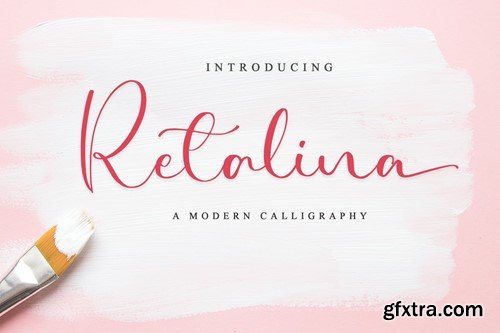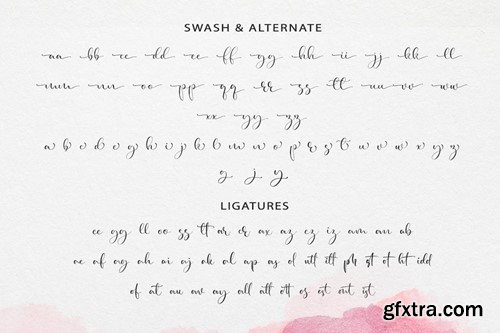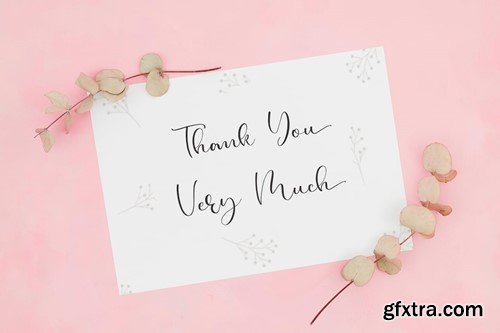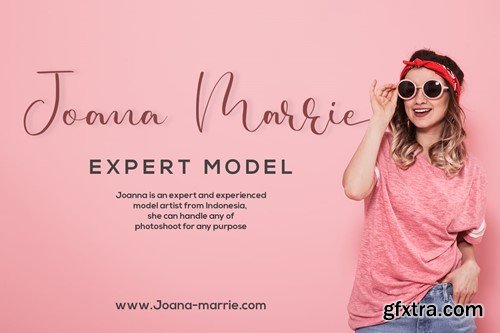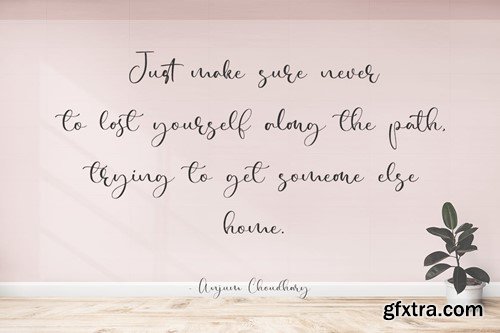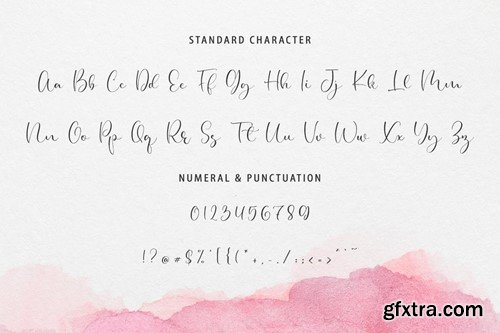
Retalina - A Lovely Script Font
Retalina is a beautiful light handwritten font with a unique feel and a stunning impact. It will add a luxury spark to any design project that you wish to create! What you get: PUA encoded = Accessible in the Adobe Illustrator, Adobe Photoshop, Adobe InDesign, even work on Microsoft Word. PUA Encoded Characters - Fully accessible without additional design software. Thank You